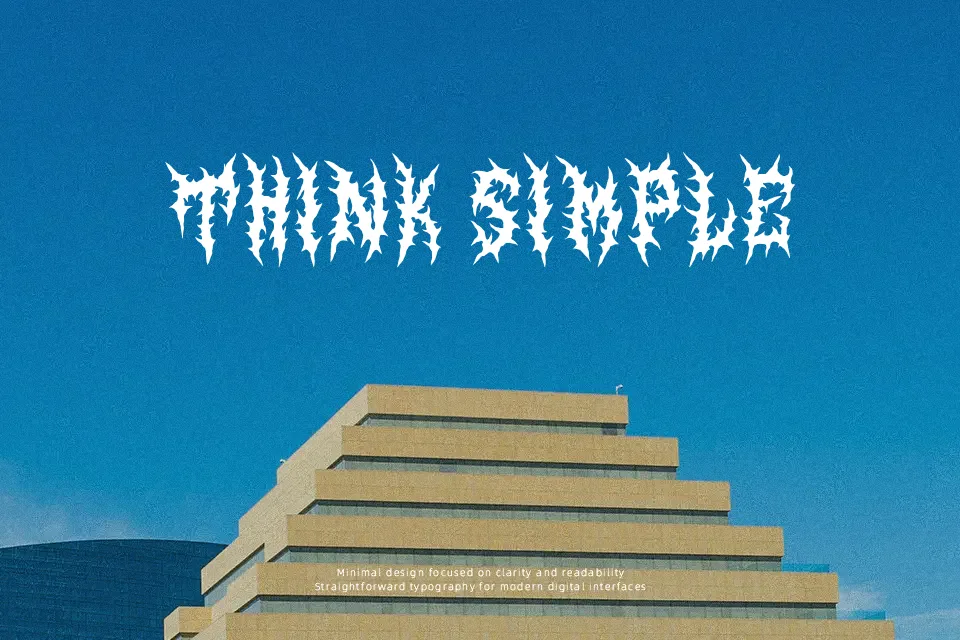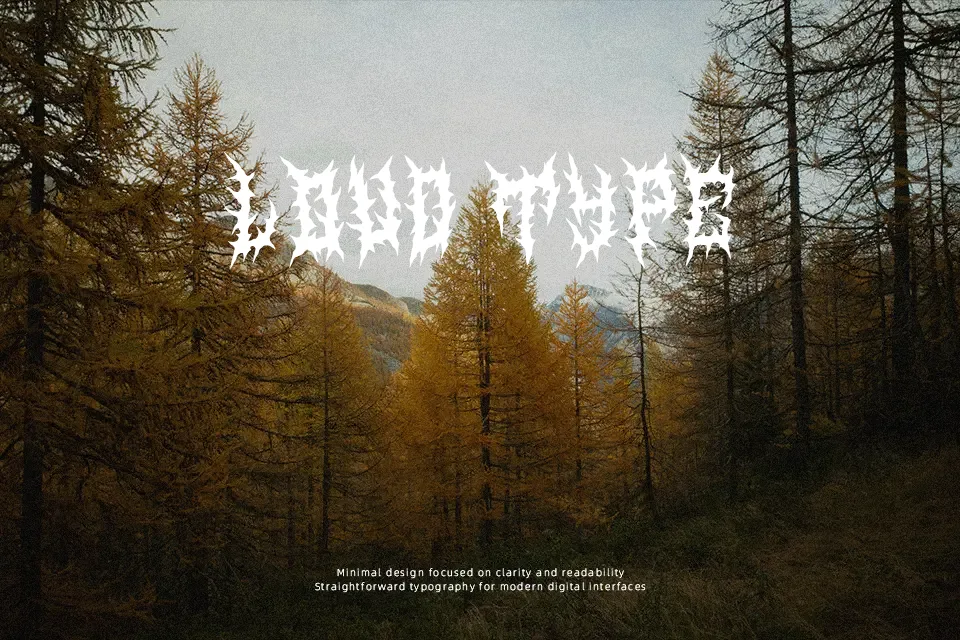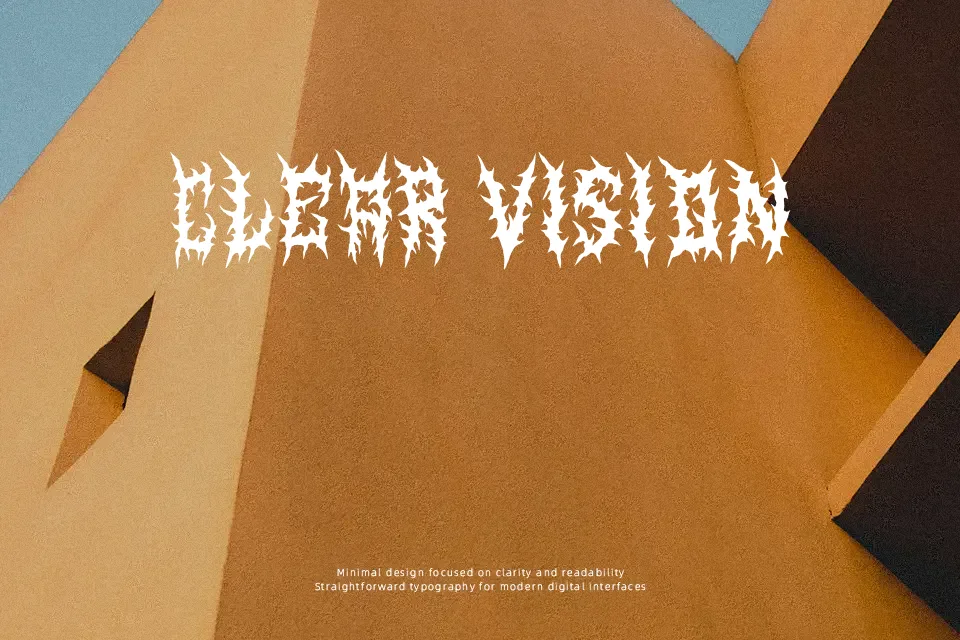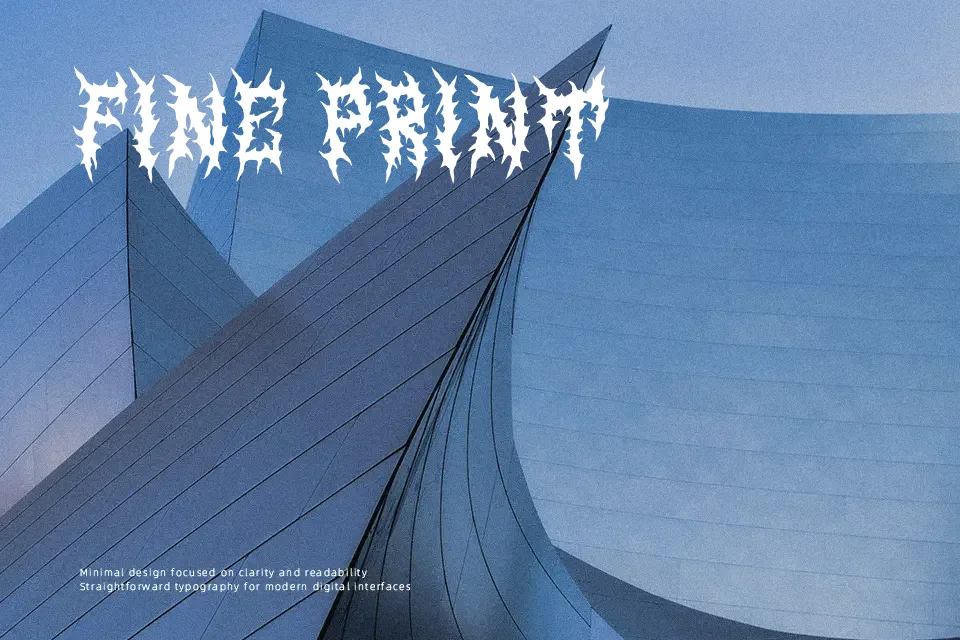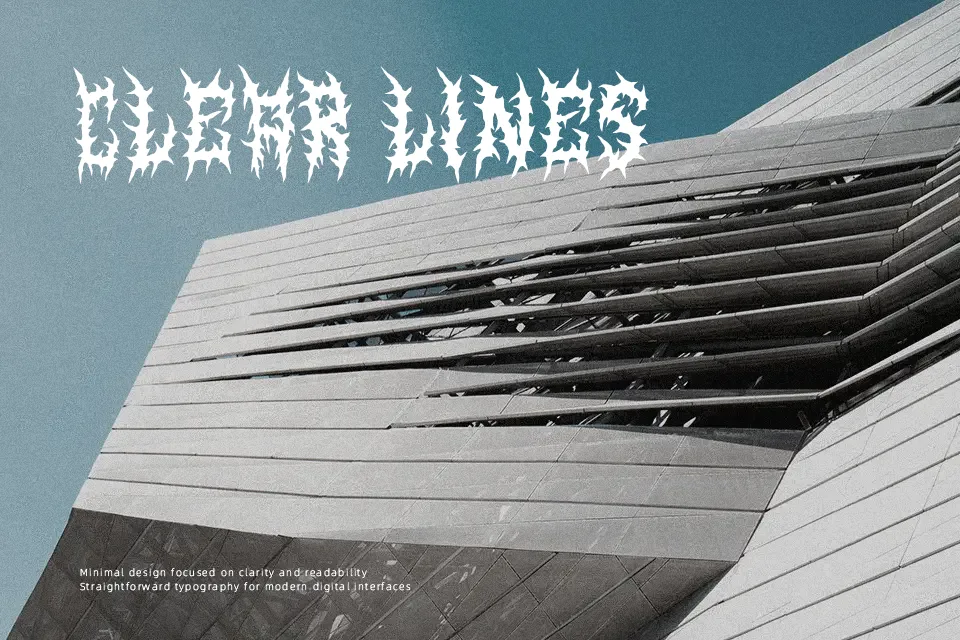
Thorned Font
Thorned Font commands immediate attention through rugged display letterforms armed with pointed spines that extend from each stroke. The typeface employs heavy structural stems with minimal internal contrast, maintaining a dense presence across the character set. Tight glyph spacing reinforces its compact rhythm, while jagged contours deliberately distort conventional letter shapes to heighten visceral impact. These prickly forms deliver unmistakable grit across festival billboards, gothic apparel, and video game logos. However, the intricate decorative thorns severely hinder text clarity at reduced point sizes. During extended reading in body paragraphs, the letterforms quickly become illegible, proving that this design thrives strictly as a prominent headline centerpiece.
Best For: horror movie title cards, heavy metal album packaging, gothic streetwear graphics, halloween event flyers
Not Ideal For: long paragraph text, mobile user interface labels, corporate annual reports, dense editorial layouts
Perfect for film, halloween, and headline, with a bold and decorative style.